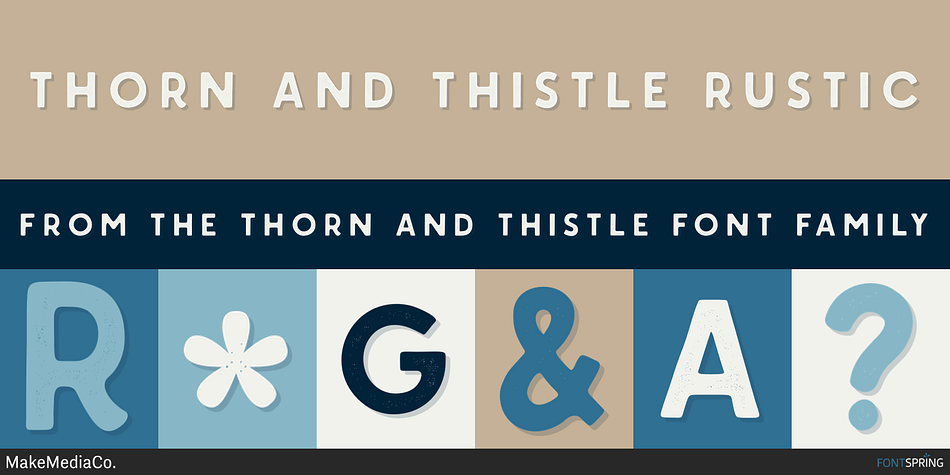
Thorn And Thistle Rustic
Thorn And Thistle is a display sans font family. This typeface has three styles and was published by MakeMediaCo.
Introducing Thorn & Thistle, a hand drawn Sans Serif family with subtlety-inked corners in 3 versions; regular, rustic and shadowed.  Thorn & Thistle is the trendy, classic beauty you need on magazines, headlines, logos, packaging, quotes and logos.
• Please Note these fonts are handwritten , so the edges might be a little irregular. The Regular Version will work with Circuit or Silhouette, but I wouldn’t try and cut the Rustic version.